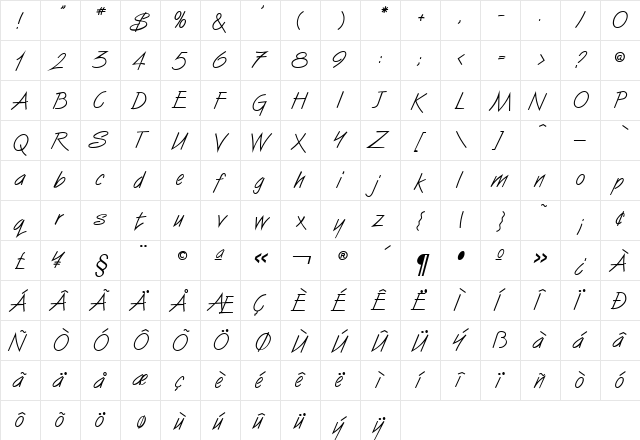
UVN Vien Du Regular
Design Context for UVN Vien Du Typeface
UVN Vien Du offers clean, dependable letterforms without strong stylistic allegiance, making it a practical choice for designers who need flexibility.